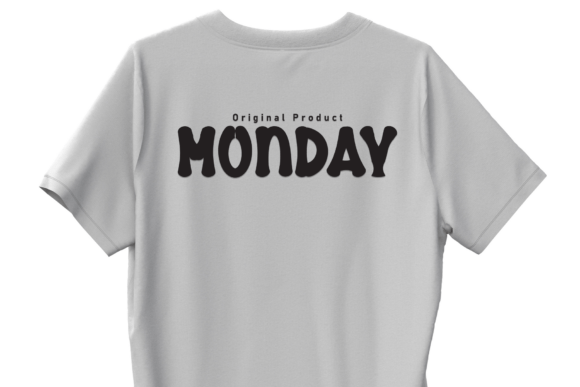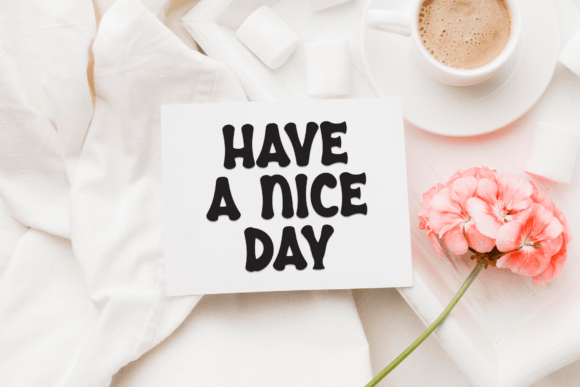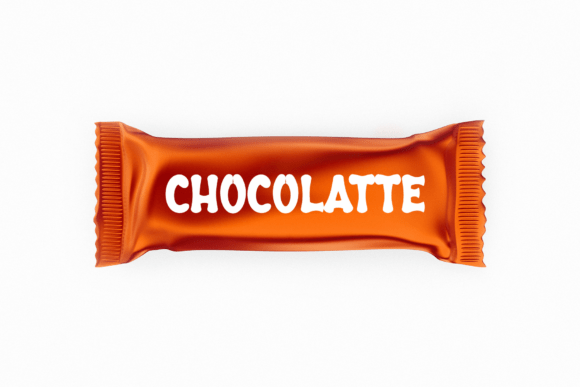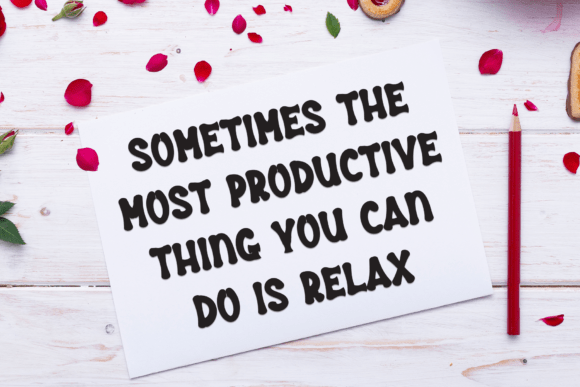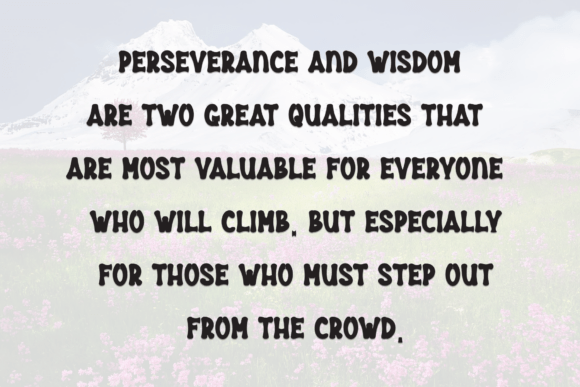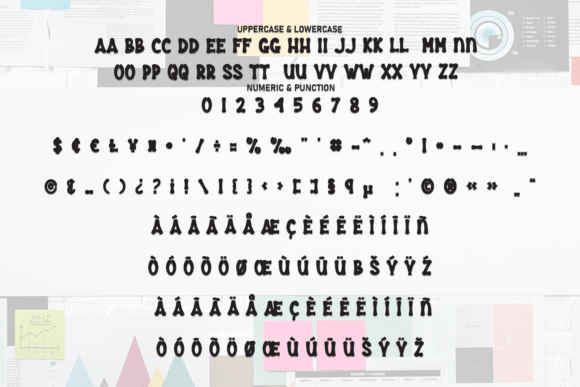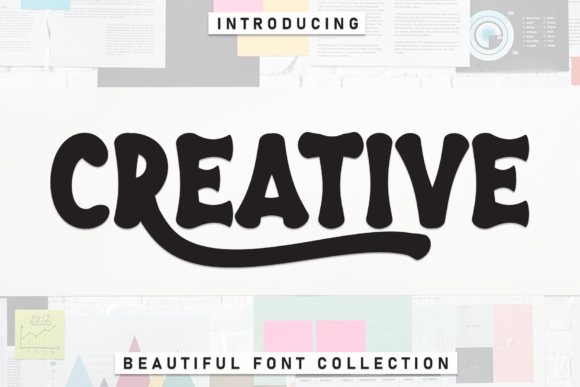
Unlocking the Magic of Creative Font: A Whimsical Journey
Welcome to the enchanting world of Creative Font, a delightful, handwritten display font that is sure to inject a heartwarming vitality and exuberance into your creative projects. With its charismatic whimsy and merry vibes, this font is the perfect choice for designers and crafters looking to add a dash of delight to their work.
The Charm of Creative Font
Creative Font is more than just a font – it’s an experience. Its delightful, merry vibes make it a premier choice for crafting captivating wedding invitations, heartfelt greeting cards, or any creative journey that needs a dash of delight. Whether you’re a designer looking to elevate your branding or a crafter seeking to add a personal touch to your DIY projects, Creative Font is the perfect companion.
A Harmonious Blend of Play and Elegance
One of the standout features of Creative Font is its ability to harmoniously weave together elements of play and elegance. This font is not just about being whimsical; it’s also about sophistication. The charming character of Creative Font ensures that your designs are not only fun but also refined and polished. This balance makes it an excellent choice for a wide range of projects, from children’s party invitations to sophisticated branding materials.
Infusing Your Creations with Dreamy Allure
The Creative Font is designed to instill a dreamy allure into your creations. Its unique, handwritten style gives your text a personal and intimate feel, making your designs more relatable and engaging. Whether you’re working on a logo, a poster, or a digital graphic, Creative Font can help you create something truly special and memorable.
A Meticulous Mingling of Vivacious and Sweet
What sets Creative Font apart is its meticulous mingling of vivacious and sweet elements. This jubilant font is ready to captivate your audience and elevate the gleeful energy of your designs. It’s perfect for projects that require a bit of zest and excitement, such as event invitations, social media graphics, and more.
Creative Font is a versatile tool that can be used by both designers and crafters. For designers, it offers a unique and refreshing way to add personality to your branding and marketing materials. For crafters, it provides a beautiful and easy-to-use font for personal projects, such as handmade cards and invitations.
Why Choose Creative Font?
So, why choose Creative Font for your next project? Here are just a few reasons:
- Unique and Eye-catching: Creative Font offers a unique and eye-catching style that’s sure to stand out.
- Versatile: It’s versatile and can be used for a wide range of projects, from digital graphics to print materials.
- High-Quality: It’s a high-quality font that’s designed to deliver exceptional results.
In conclusion, Creative Font is a delightful, handwritten display font that’s sure to bring a touch of whimsy and charm to your creative projects. With its unique blend of play and elegance, it’s the perfect choice for designers and crafters looking to add a dash of delight to their work. Whether you’re working on a wedding invitation, a greeting card, or a digital graphic, Creative Font is sure to elevate your designs and captivate your audience.